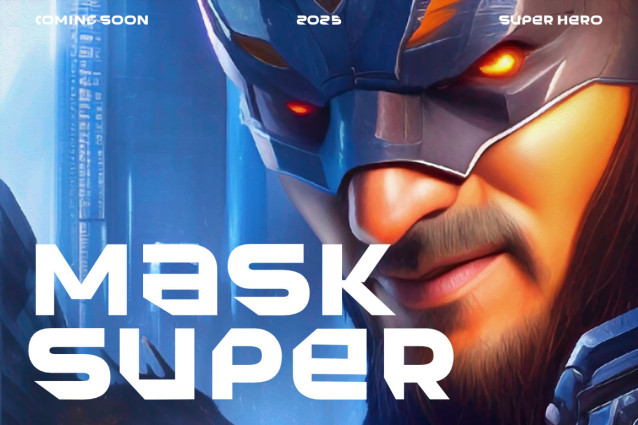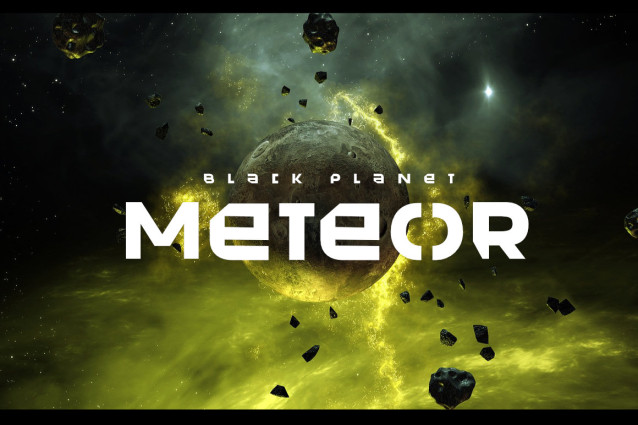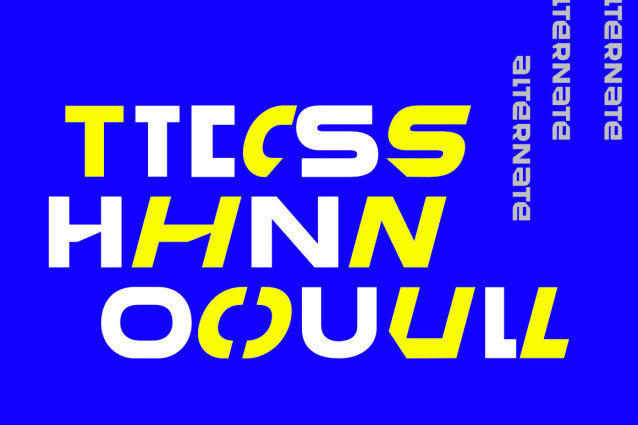
Title Ren Font
Title Ren Font is a futuristic font, a font inspired by the visual of technology that we can find from logo, sci-fi movies, games, and the present gadgets. Designed with minimalist style and unique letterforms, a perfect choice to use on logos, labels, posters, packaging, books, movies, presentations, games, and much more!